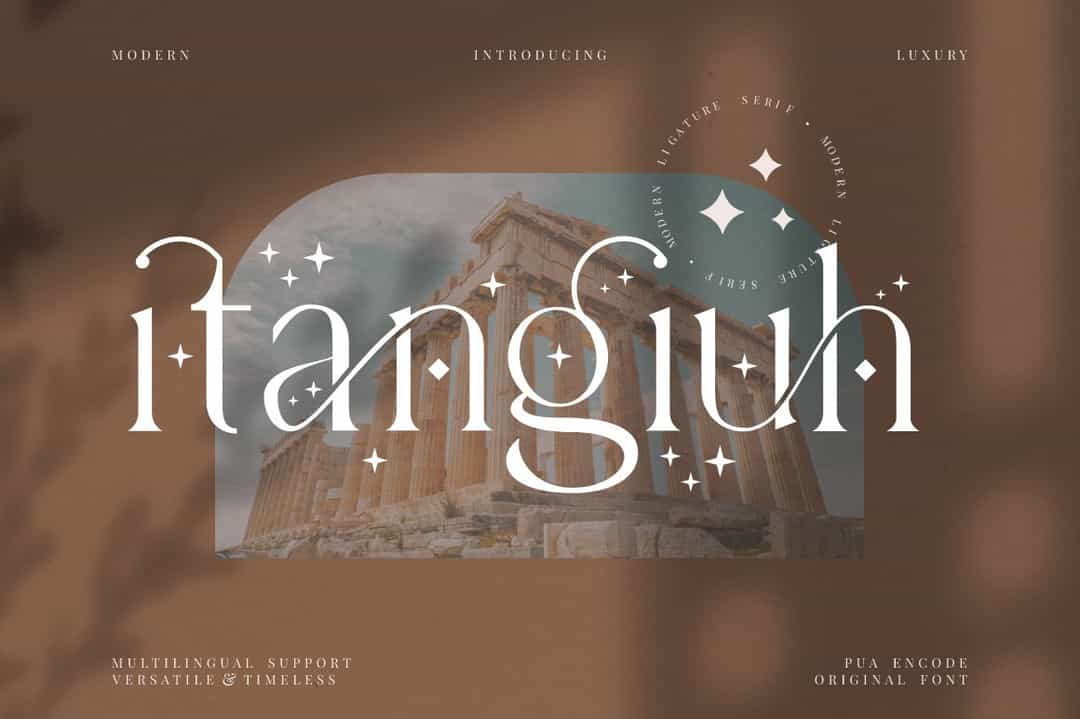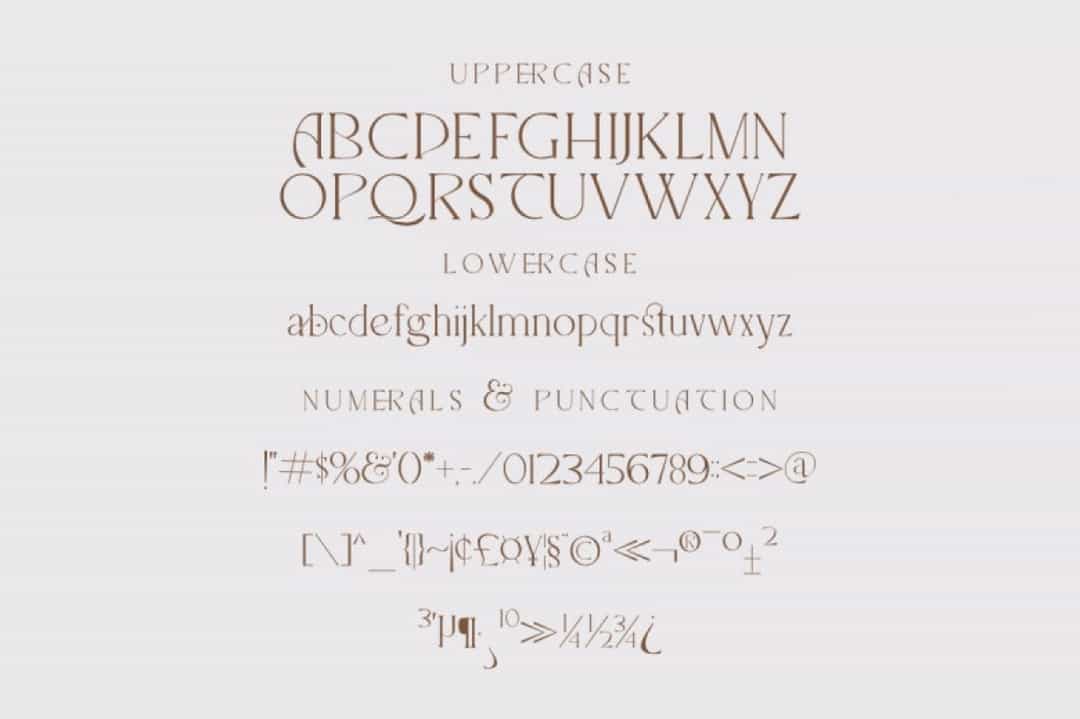
Discover Itangiuh Font, part of the Serif Basic collection—a versatile and unique font perfect for adding a personal touch to your projects. Download it for free and enjoy crafting designs with style, from invitations to social media posts. This font is available exclusively for personal use, giving you the freedom to create without limits. Unlock your creativity with Itangiuh Font today!
FinTypeStudio has designed Itangiuh as an elegant serif font. Suitable for logos, branding and homeware designs packaging for products cups posters quotes shopping bags t-shirts book covers name cards invite cards greeting cards labels watermark photography events special occasions as well as any project needing an elegant serif touch this font can bring elegance.